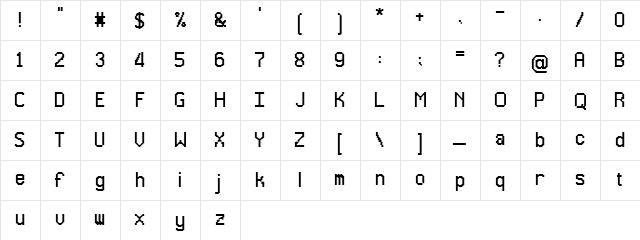
Glitch0 Normal Font Preview
Glitch0 Normal
Glitch0 Normal Font Details
Design Context for Glitch0 Typeface
Glitch0 takes a measured approach to typography — its balanced proportions and neutral character make it a reliable workhorse for both digital and print work.